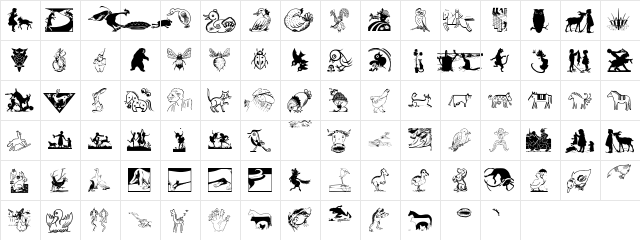
Viechereien Regular
Design Context for Viechereien Typeface
Viechereien is a composed and adaptable typeface that performs quietly and consistently across a wide range of design contexts.